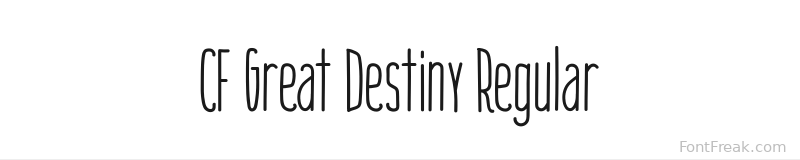
CF Great Destiny Regular
About CF Great Destiny Regular
CF Great Destiny Regular by Cloutierfontes is an engaging display font that captures attention with its unique personality. This font boasts a modern, slightly playful aesthetic, making it a versatile choice for various creative projects. Its stroke weight is moderately balanced, offering a clean yet distinctive appearance. The font features a mix of rounded and angular elements, creating a harmonious contrast that enhances readability while adding character. The spacing is well-considered, ensuring legibility across different sizes and applications.
This font excels in multiple use cases, making it an ideal choice for graphic designers and content creators. It works beautifully for wedding invitations, where its distinctive style can add a touch of elegance. In the realm of branding, it can be used for eye-catching logos or packaging design, helping small business owners establish a memorable identity. Additionally, CF Great Destiny Regular is perfect for restaurant menus, where it can convey a sense of charm and approachability. Its unique characteristics also make it suitable for posters or promotional materials, where capturing attention is paramount.
The target audience for this font includes graphic designers, small business owners, and content creators looking for a font that stands out without being overwhelming. Its accessibility as a freeware option makes it appealing for those on a budget, while still providing a professional look.
In summary, CF Great Destiny Regular font free download offers a distinctive style that is both versatile and appealing. Its unique blend of modernity and playfulness makes it a standout choice for various design projects, enabling creators to express their vision with flair and confidence.